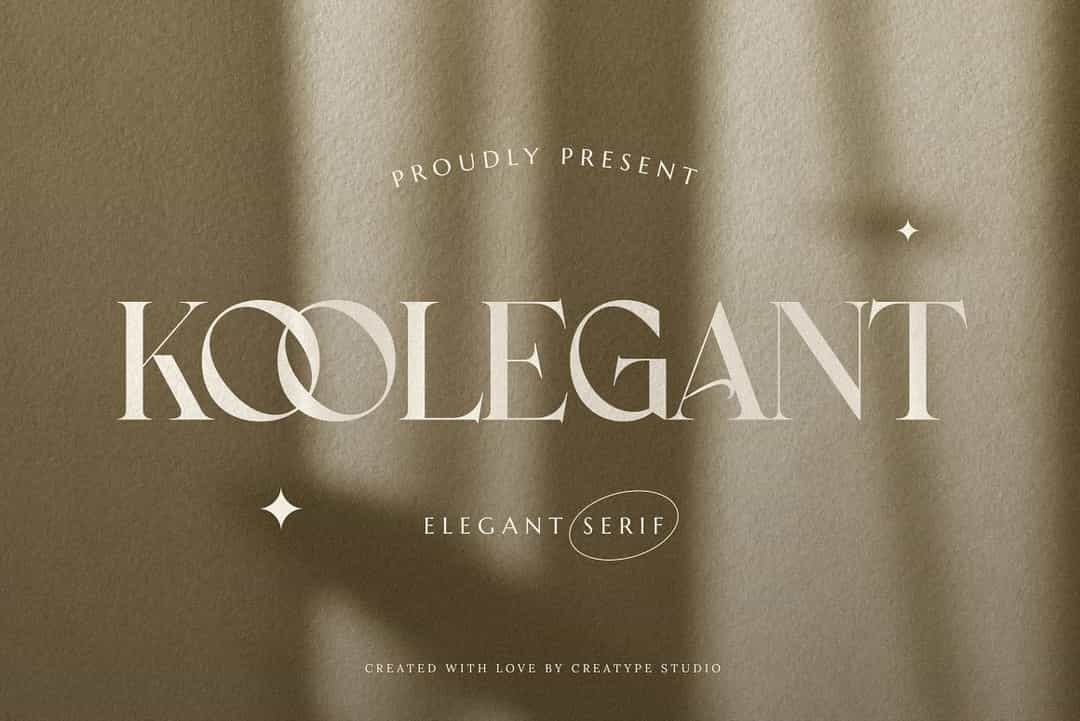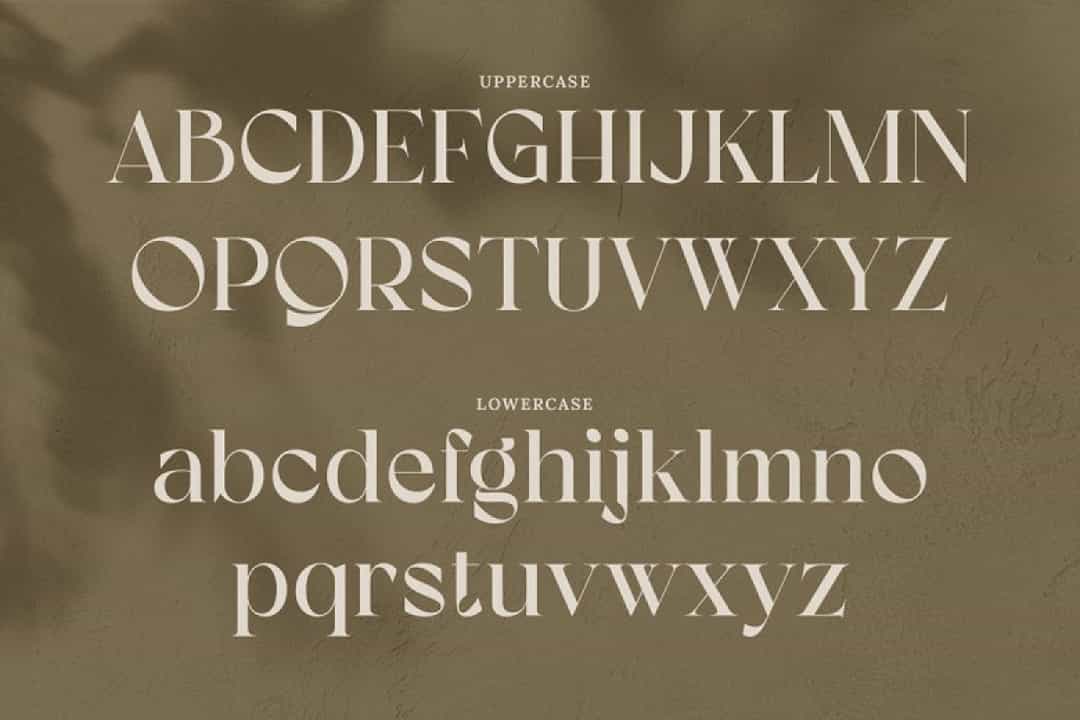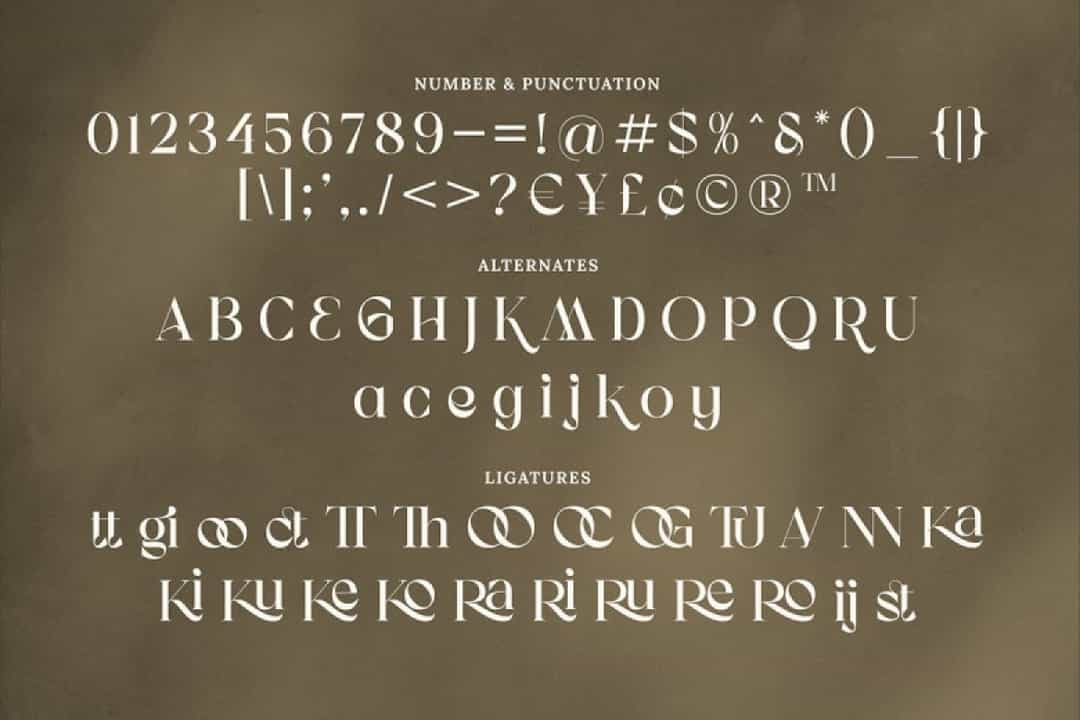
Discover Koolegant Font, part of the Serif collection—a versatile and unique font perfect for adding a personal touch to your projects. Download it for free and enjoy crafting designs with style, from invitations to social media posts. This font is available exclusively for personal use, giving you the freedom to create without limits. Unlock your creativity with Koolegant Font today!
Koolegantis is a fashionable serif typeface with many fashionable accessories. Perfect for logos, branding projects and wedding designs as well as advertisements, social media posts packaging for products designs labels photos watermark invitations stationery etc this typeface requires handwriting skills!